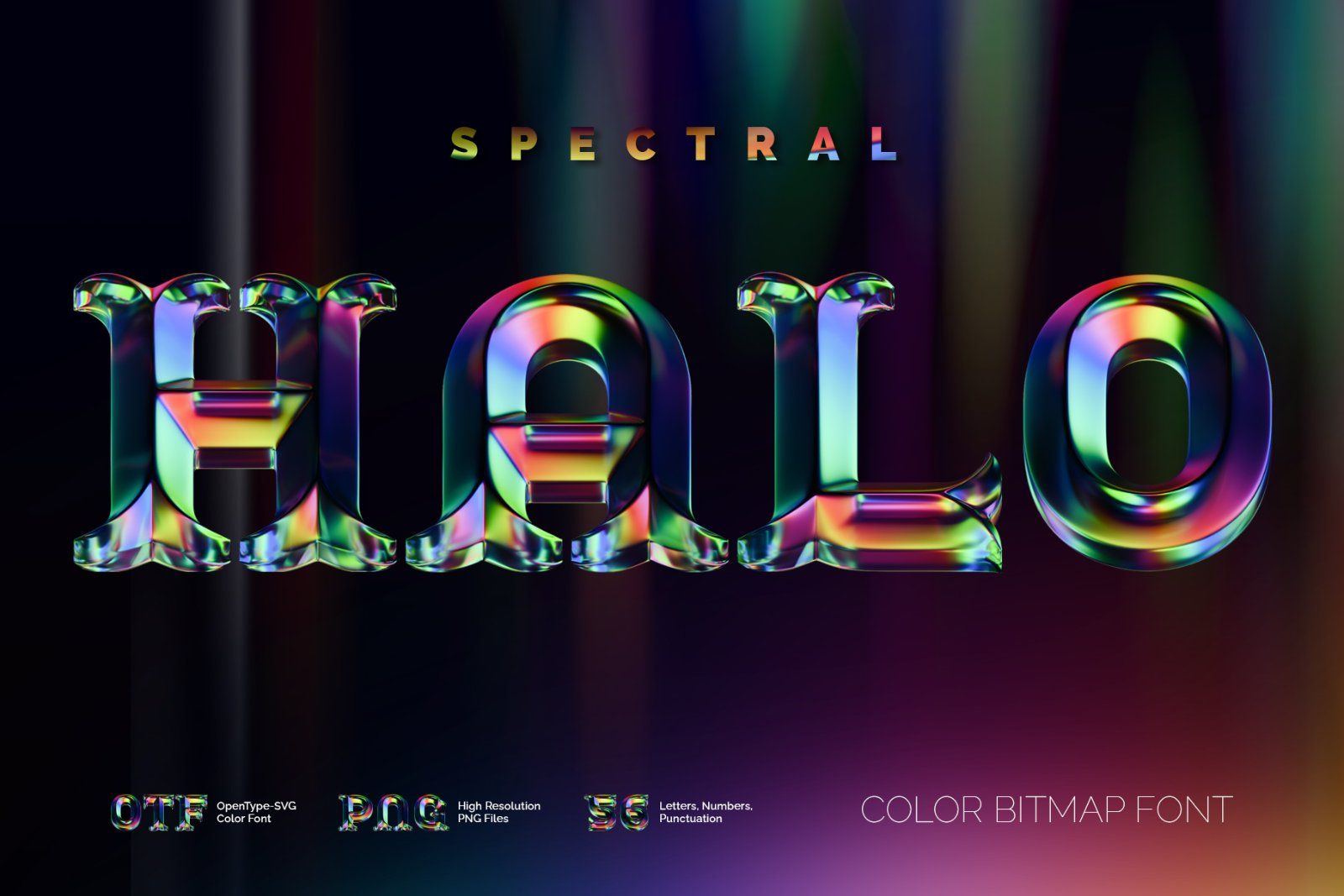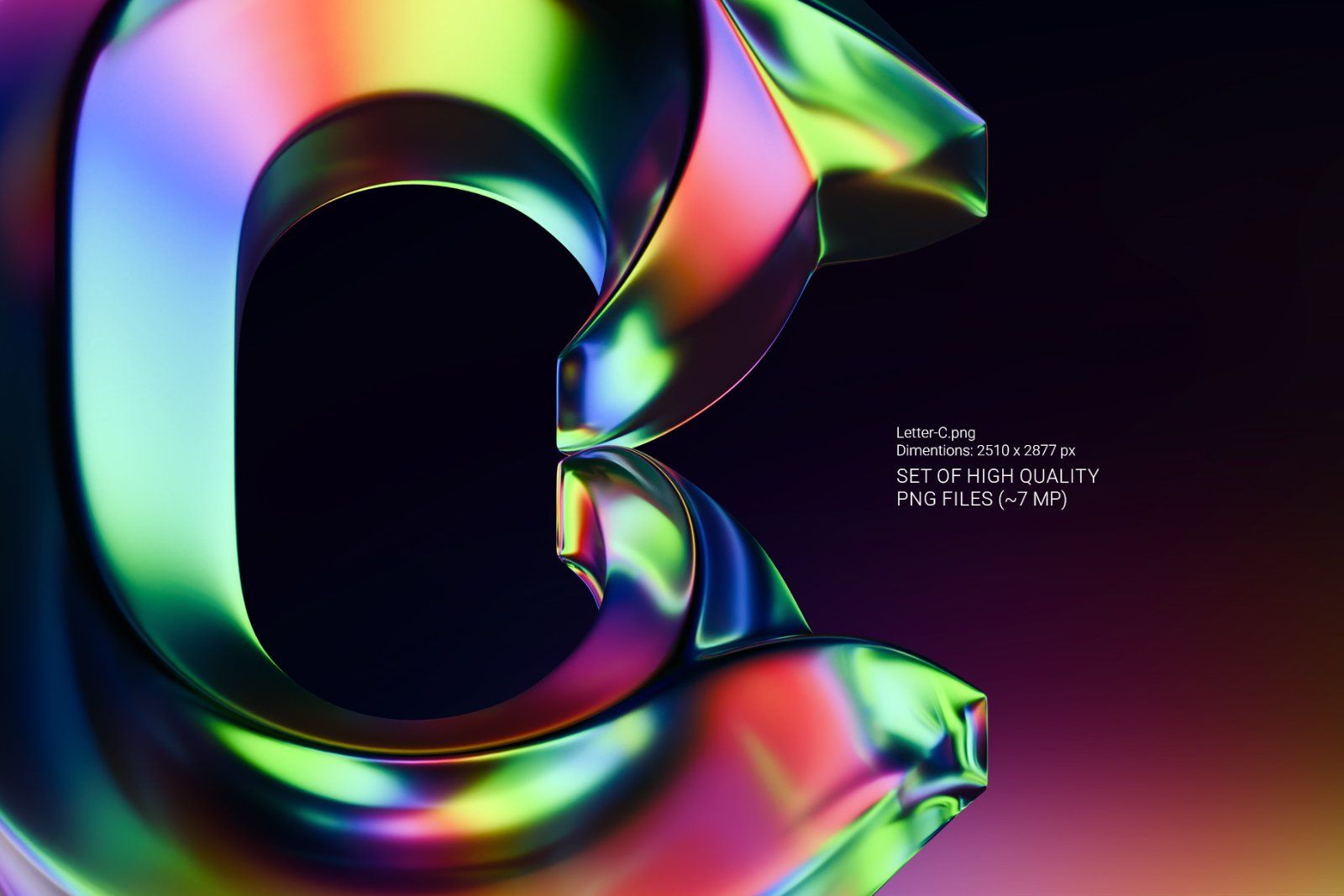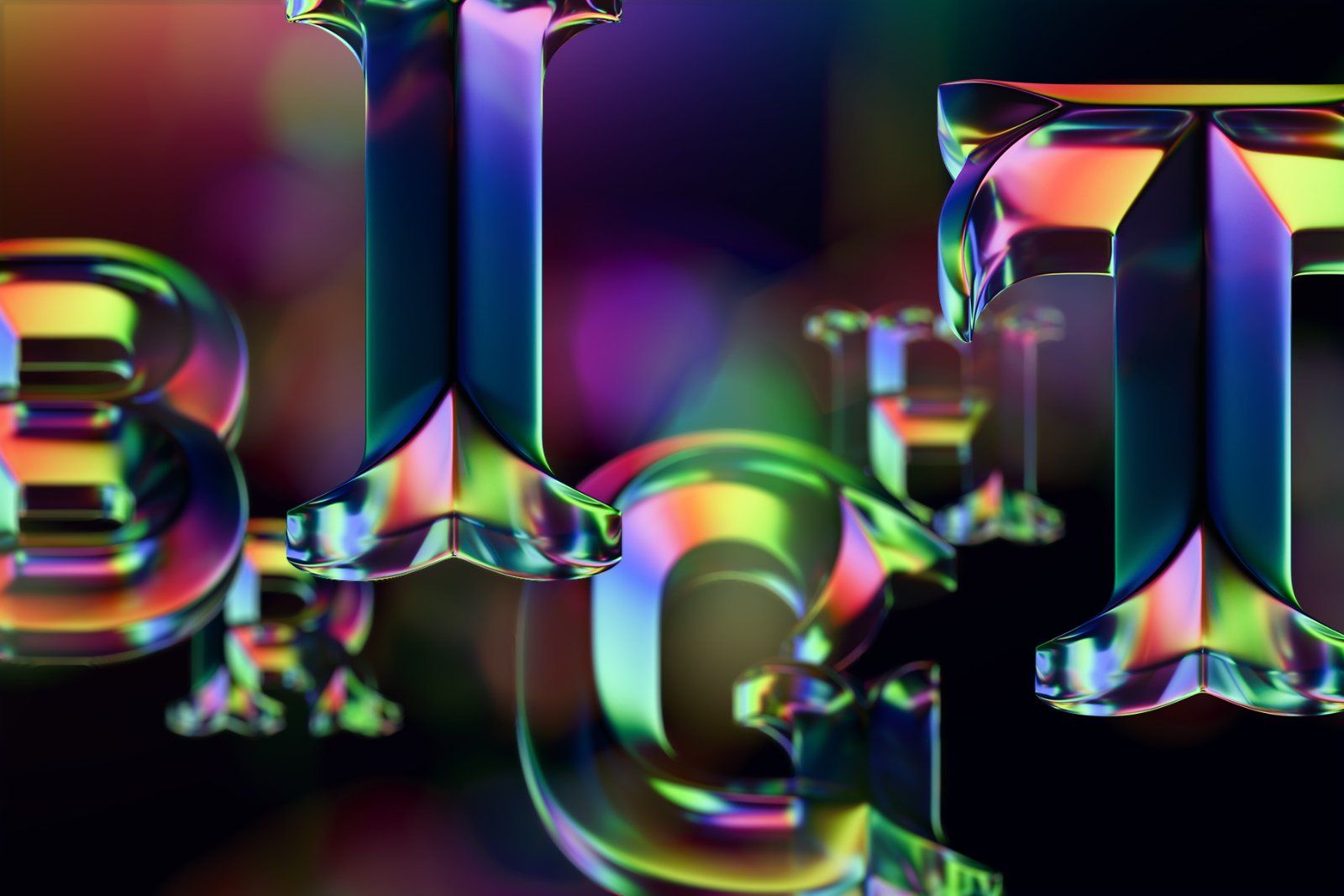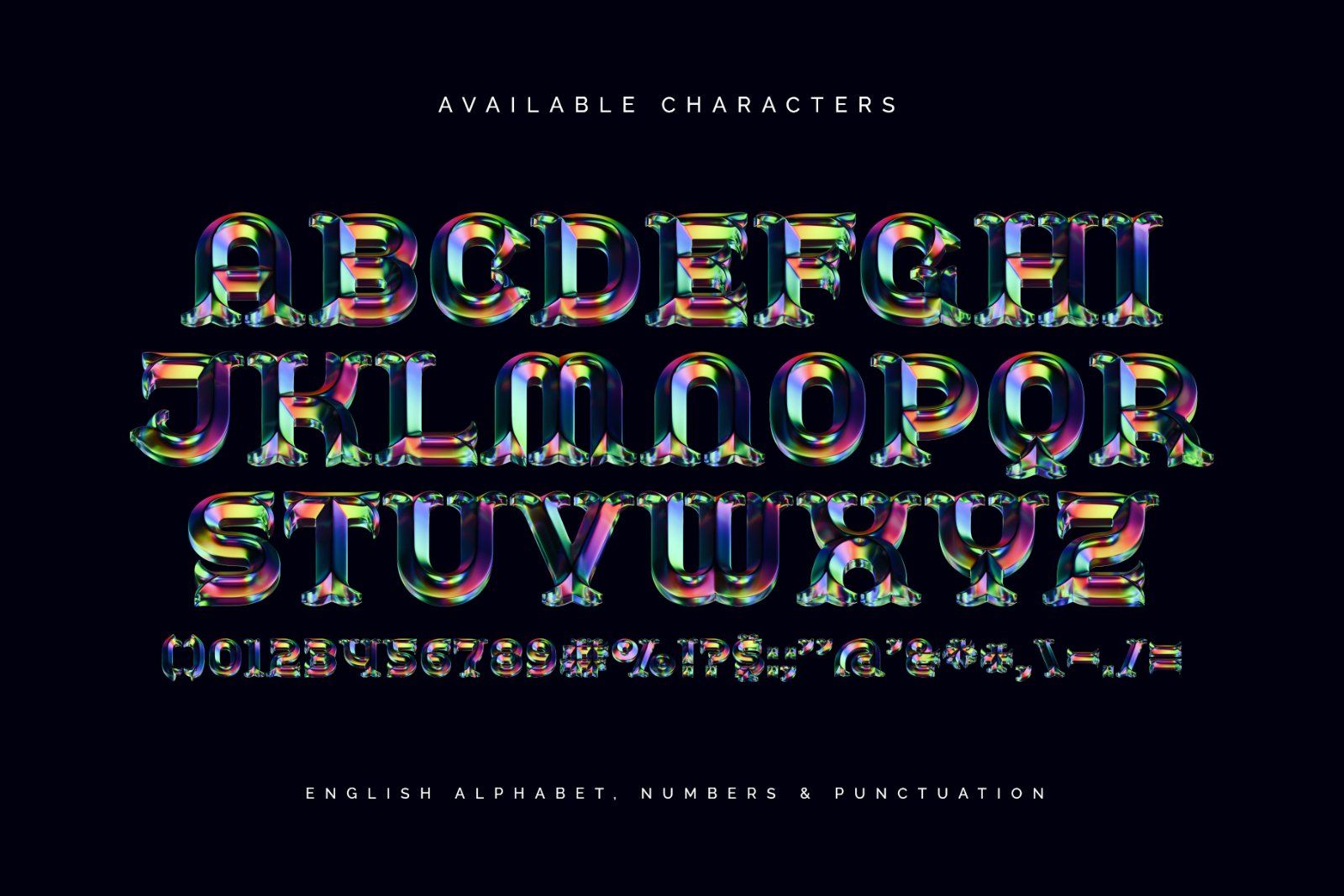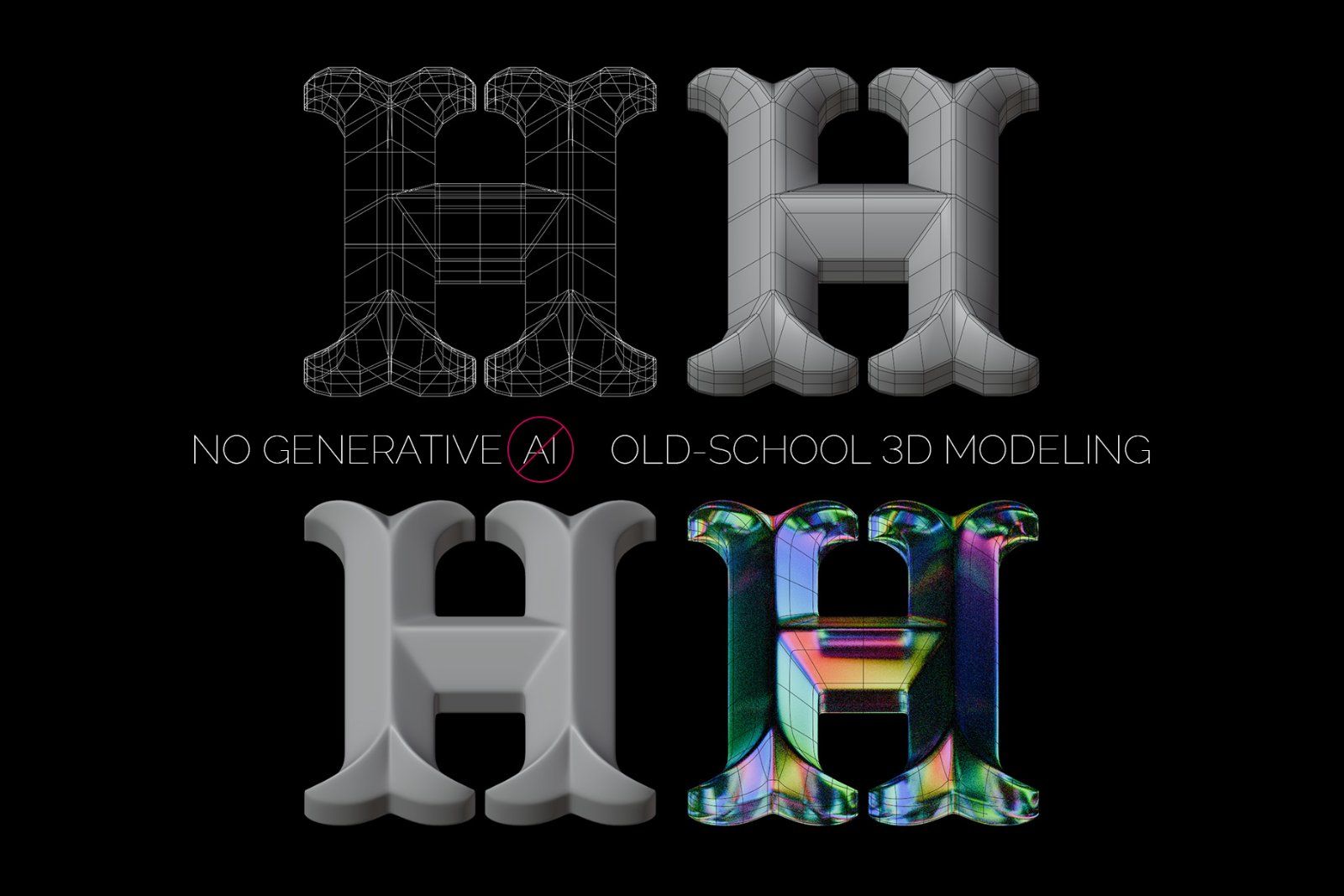
Introducing Spectral Halo, a colorful, creative font set. This 3D font has a beveled, vintage style letters with a colorful abstract glass texture that reflects light in subtle ways.